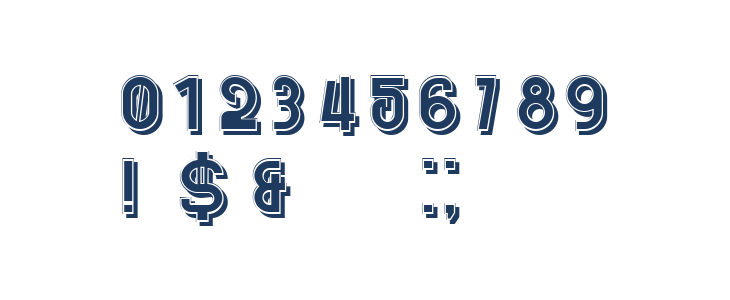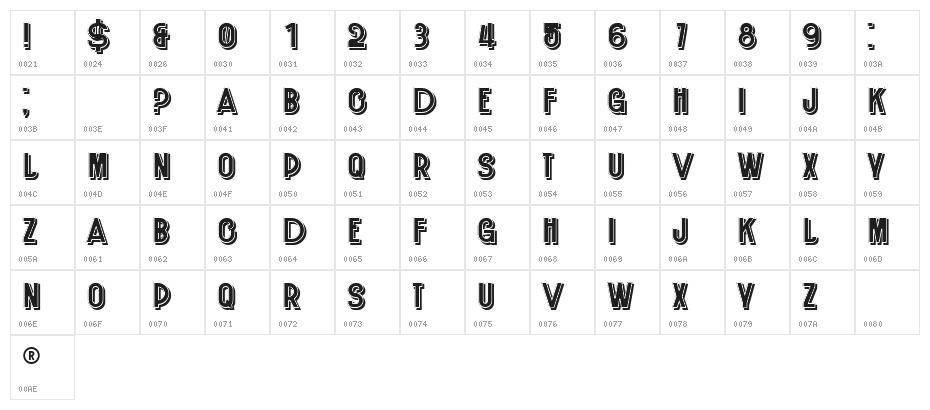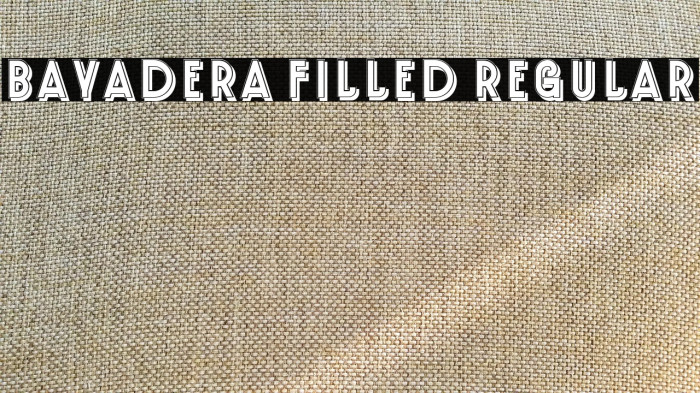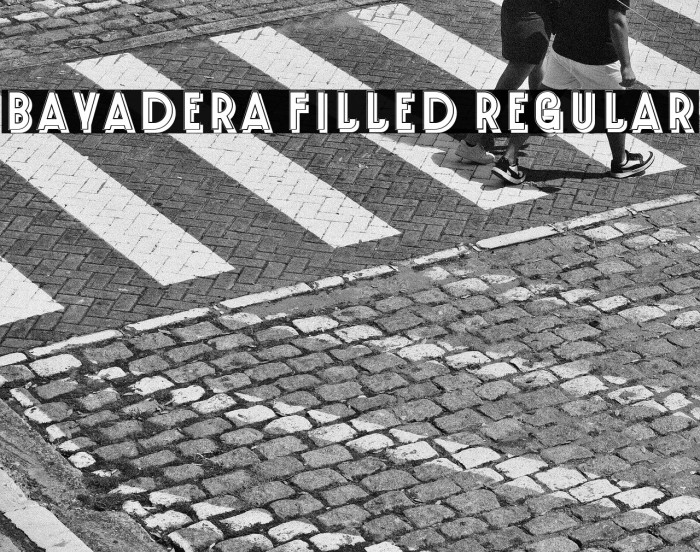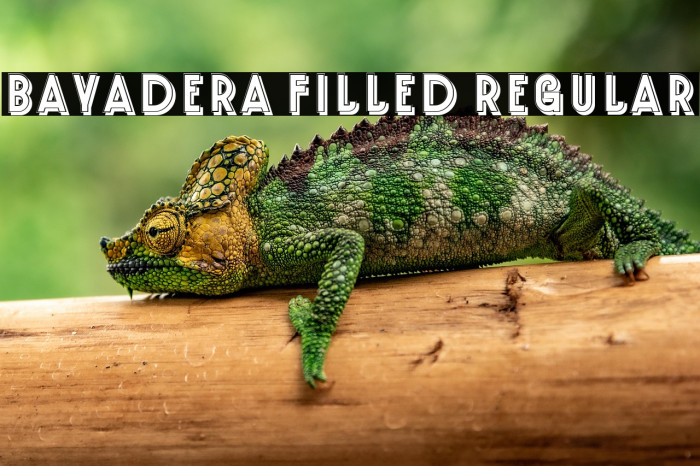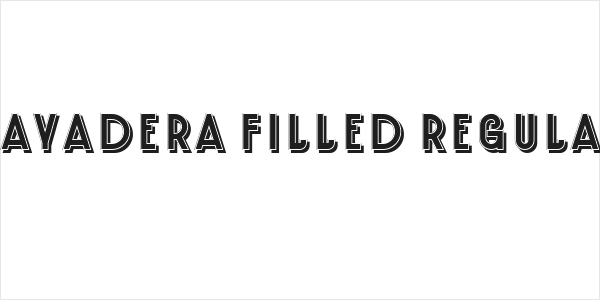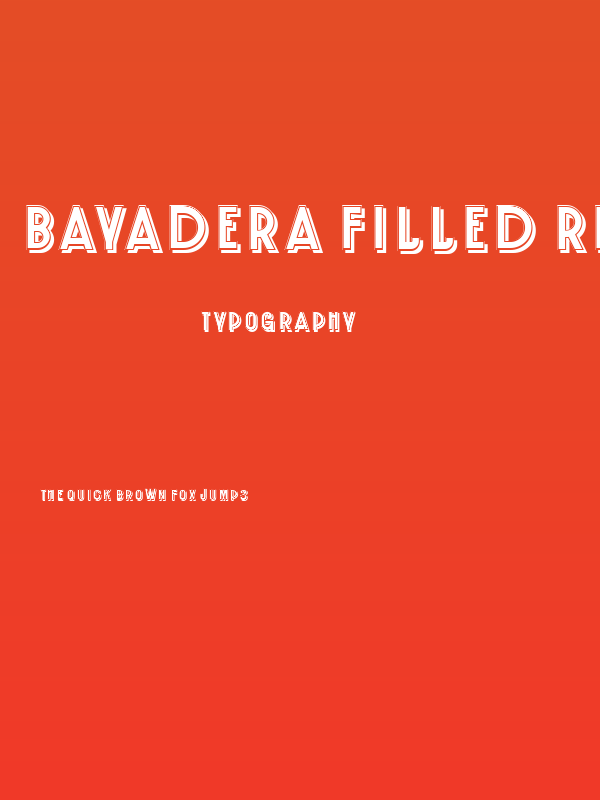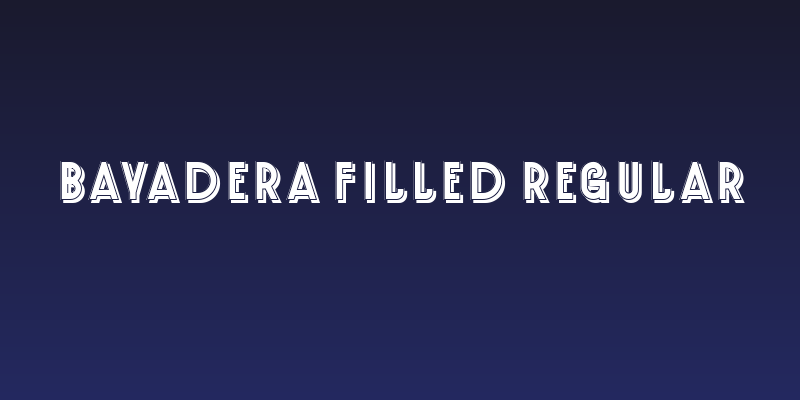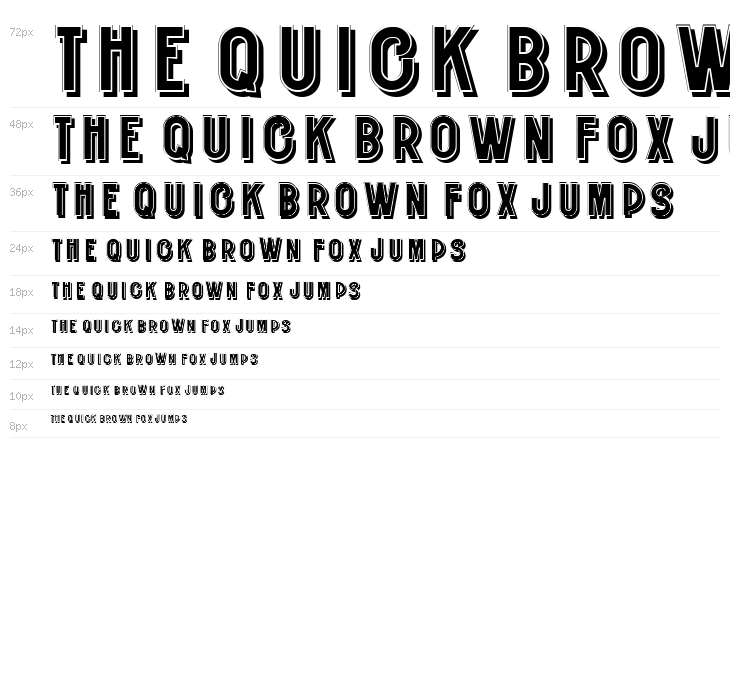
Bayadera Filled Regular Font
Bayadera Filled Regular Description
This font features a bold, decorative style with a filled, outlined design that gives it a striking and impactful appearance. The characters are uppercase and numerals, each with a strong presence due to the thick strokes and shadow-like outlines. The font has a modern, playful vibe, making it suitable for eye-catching designs. Its geometric shapes and consistent weight across characters provide a sense of balance and uniformity. The special characters, such as the dollar sign and ampersand, maintain the same bold and outlined characteristics, ensuring cohesion throughout the set.
| Proposed Projects | Ideal for posters, headlines, branding, and any design requiring a bold statement. |